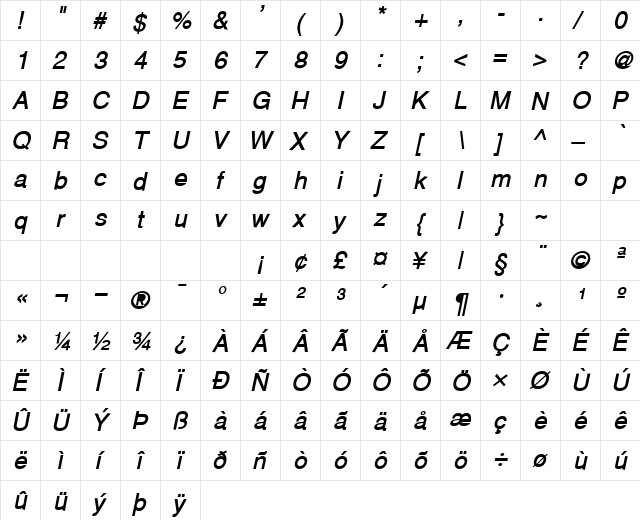
Alps-Extended Bold Italic Font Preview
Design Context for Alps-Extended Typeface
Alps-Extended takes a measured approach to typography — its balanced proportions and neutral character make it a reliable workhorse for both digital and print work. The slanted form adds forward momentum and visual energy. The heavy weight commands attention and anchors typographic hierarchies.
Pro Tip: Try Alps-Extended for annotation and caption copy alongside an upright companion — the contrast in angle creates a dynamic but ordered typographic system.